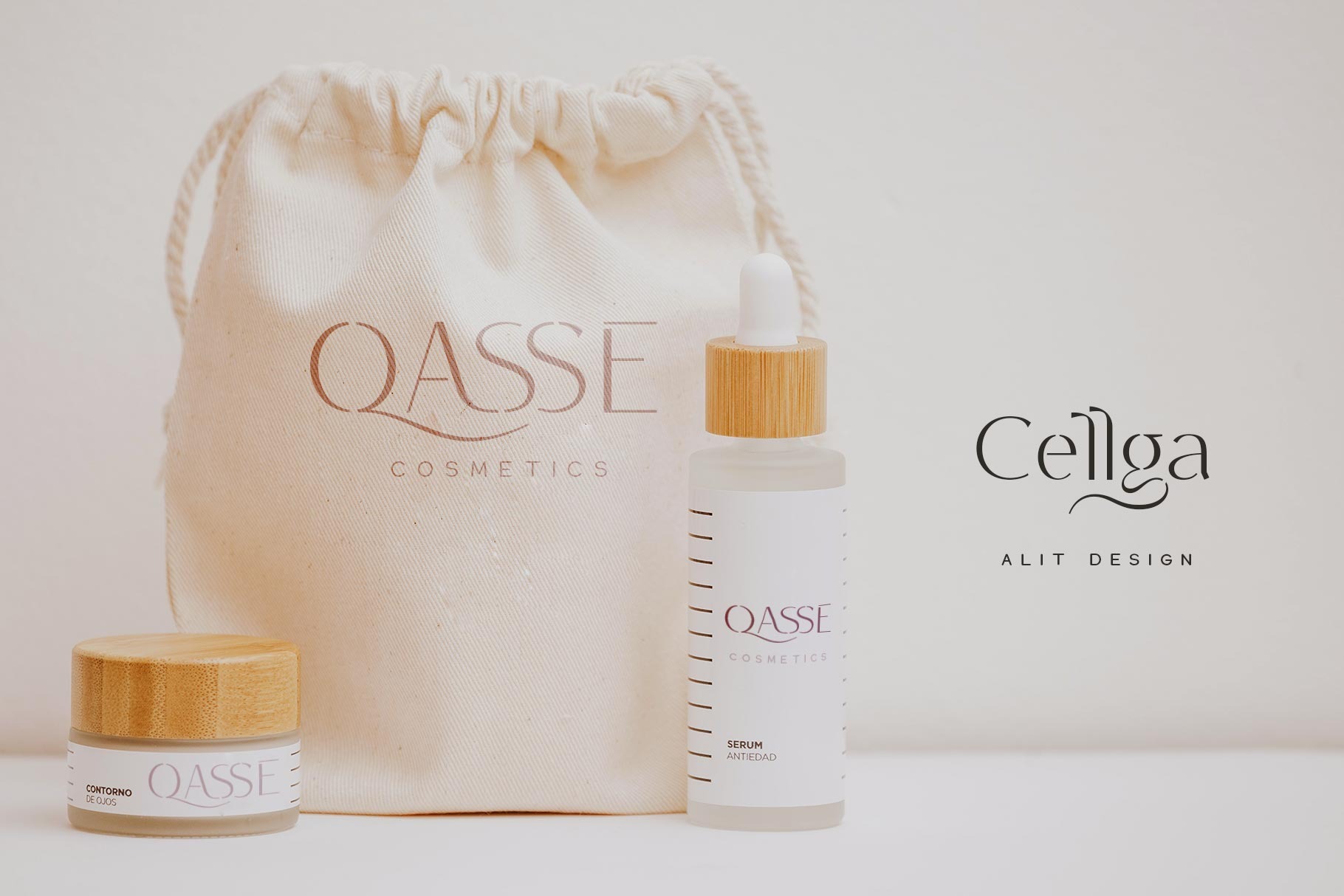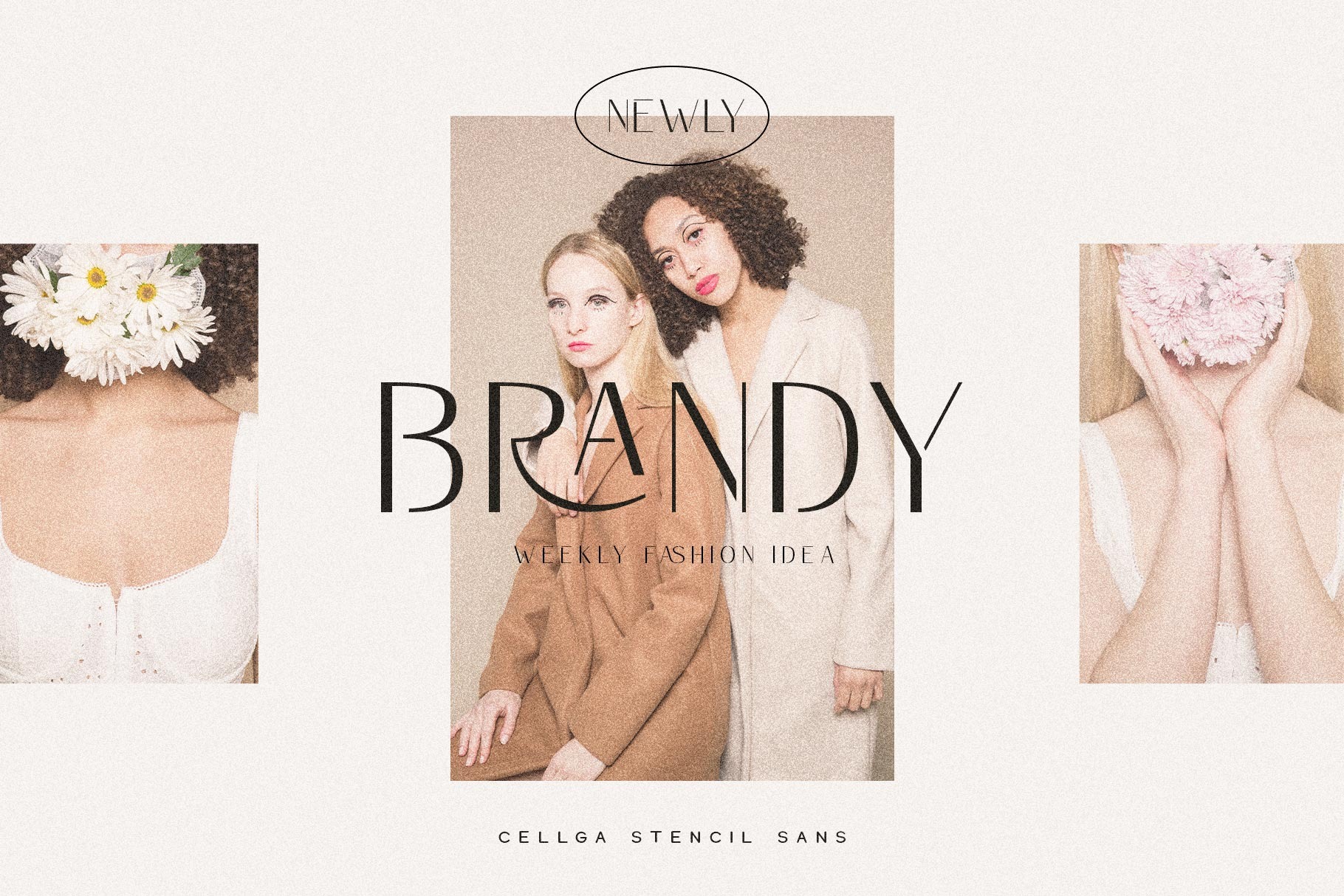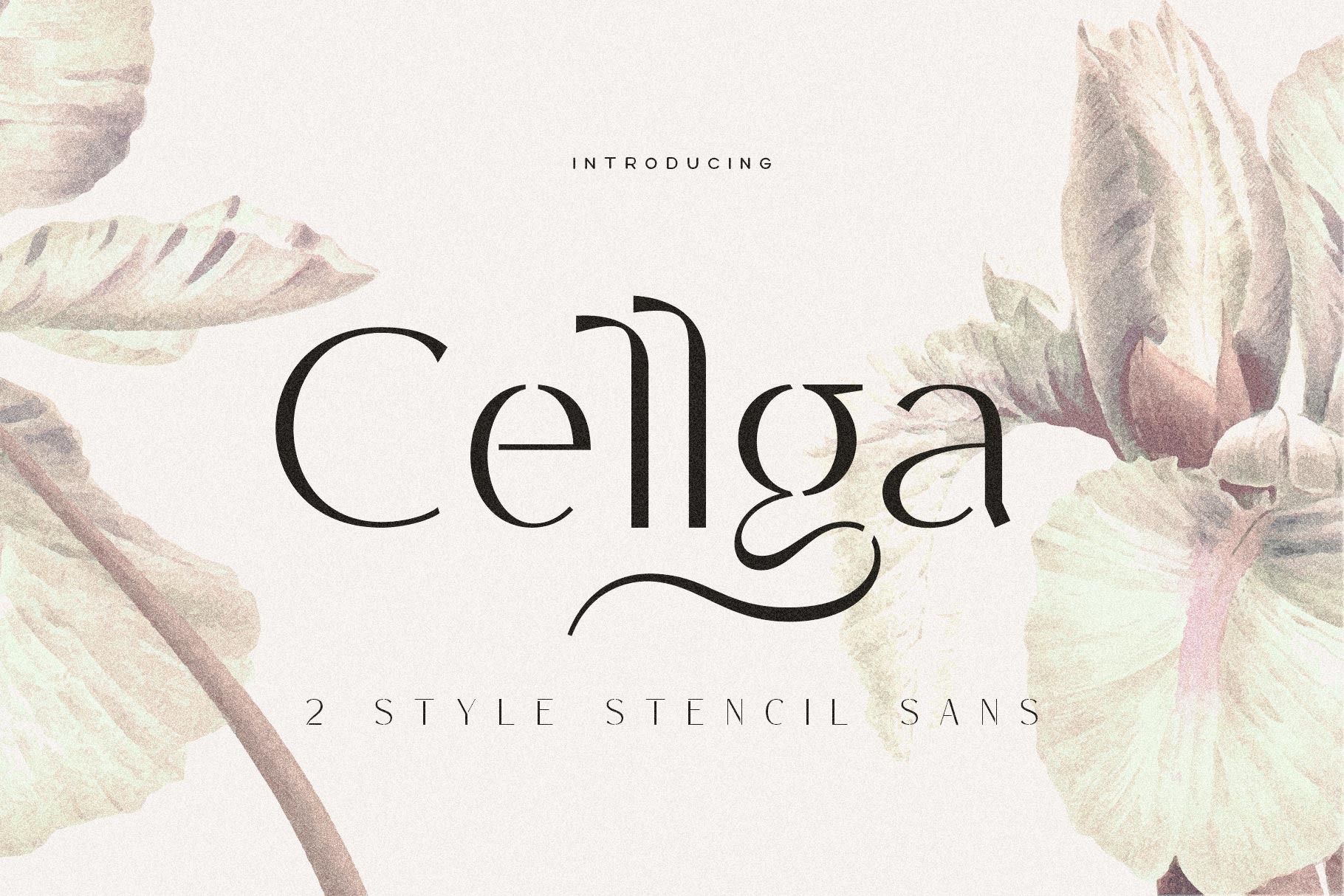
Cellga Font
Cellga Sans Serif Font
This font is designed with a sans serif font concept that has a elegant stencil style. In addition to swash in the Cellga font, there are also many alternative character shapes and unique Discreationary ligatures. So the Cellga font is very worthy of being a font collection on your computer for projects with a unique and charming elegant concept.
The “Cellga”contains 623 glyphs with many unique and interesting alternative options. In addition to the regular font, there is also an italic version of the Cellga font.